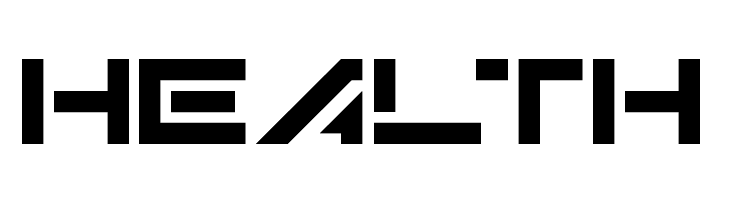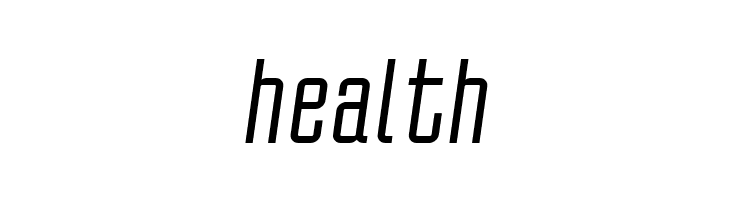
( Noah K. )
An artistic and decorative script with a mystical, ancient appearance.
( Noah K. )
An elegant, flowing script with intricate, ornate letterforms inspired by fictional elvish languages.
A modern, geometric sans-serif font with clean lines and uniform structure.
( Fonts by Daymarius )
A bold, geometric font with a futuristic and digital aesthetic.
( Fonts by Maulana Creative )
A bold, cursive script font with a dynamic and energetic style.
( Fonts by Jeff Bensch )
A whimsical, tentacle-inspired decorative font with intricate details and playful movement.
A playful, dotted font with a whimsical and creative design.
A playful, dot-based decorative font inspired by Japanese Hiragana.
A modern, monospaced font with a clean and geometric design.
A modern, italicized font with medium contrast and a sleek, condensed design.